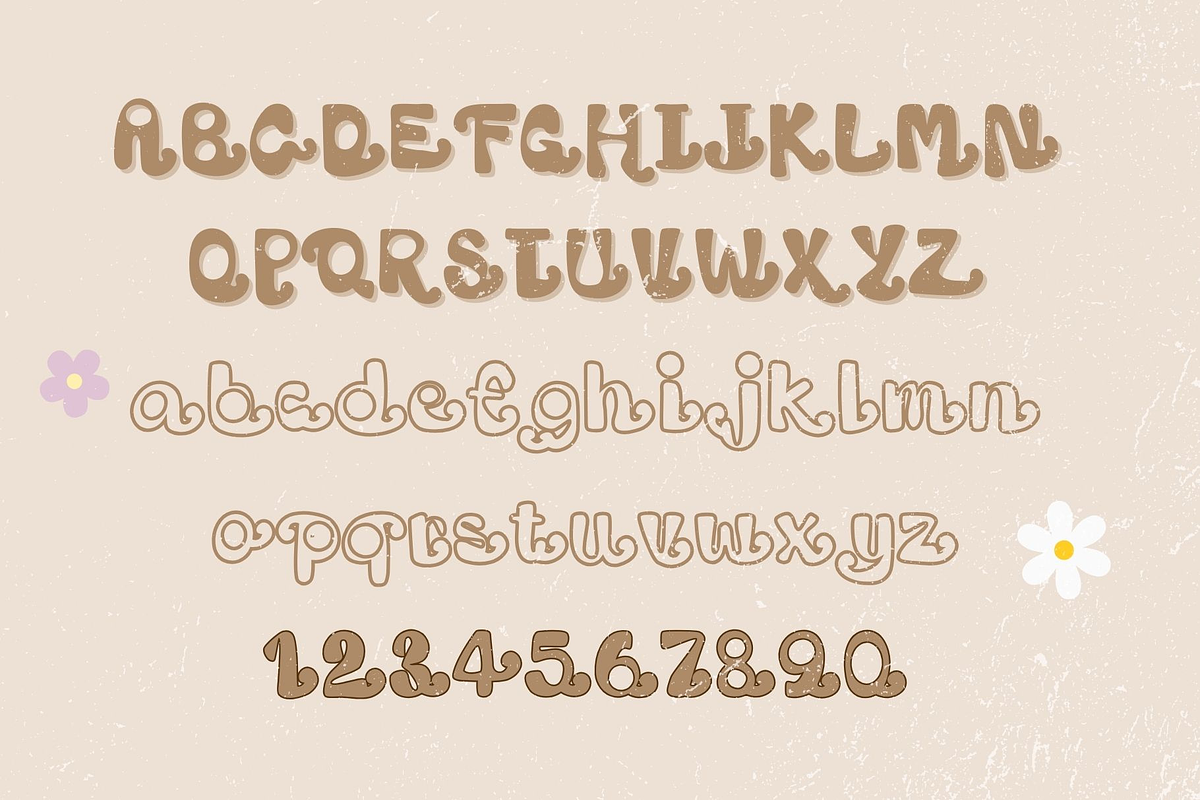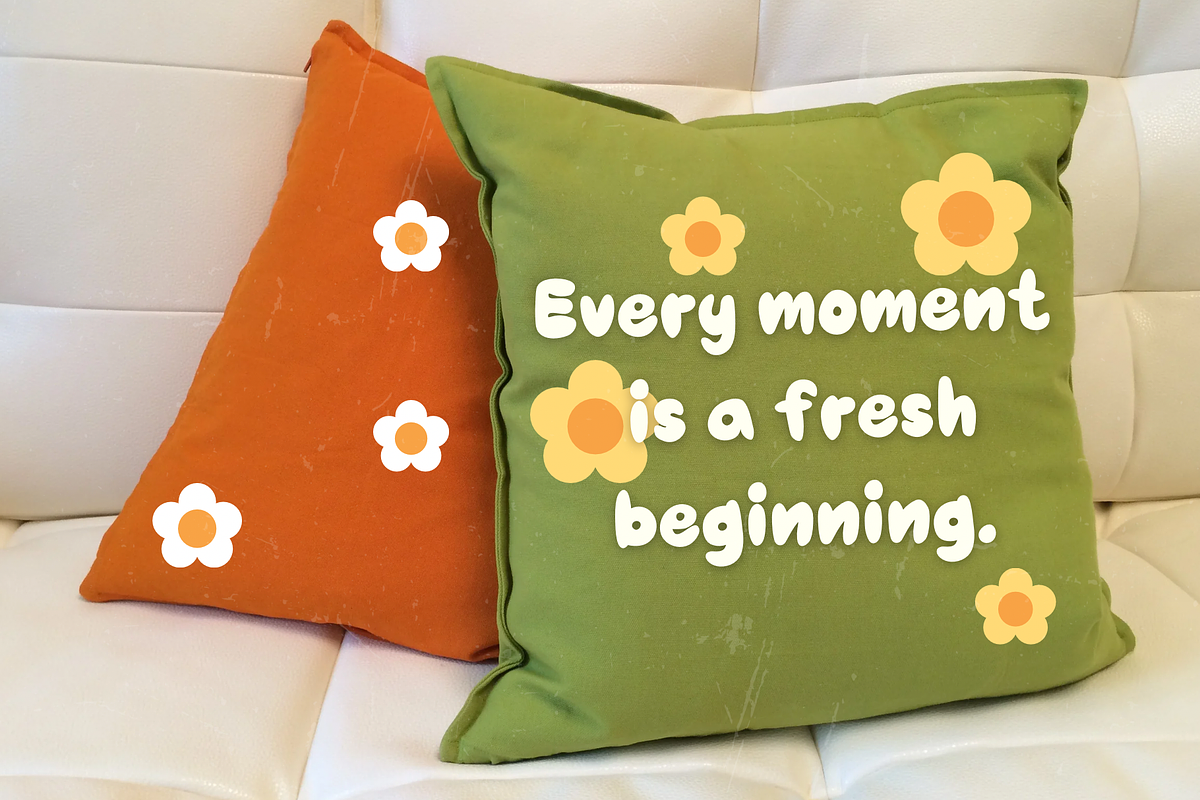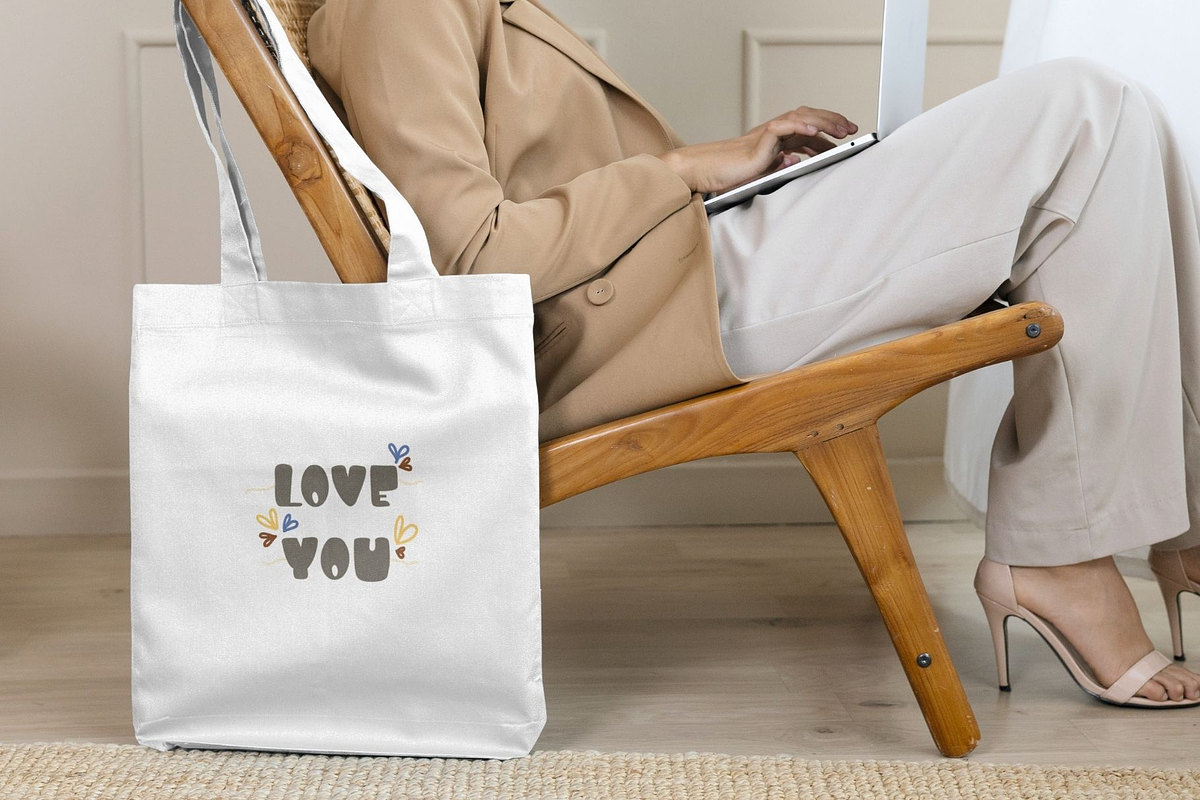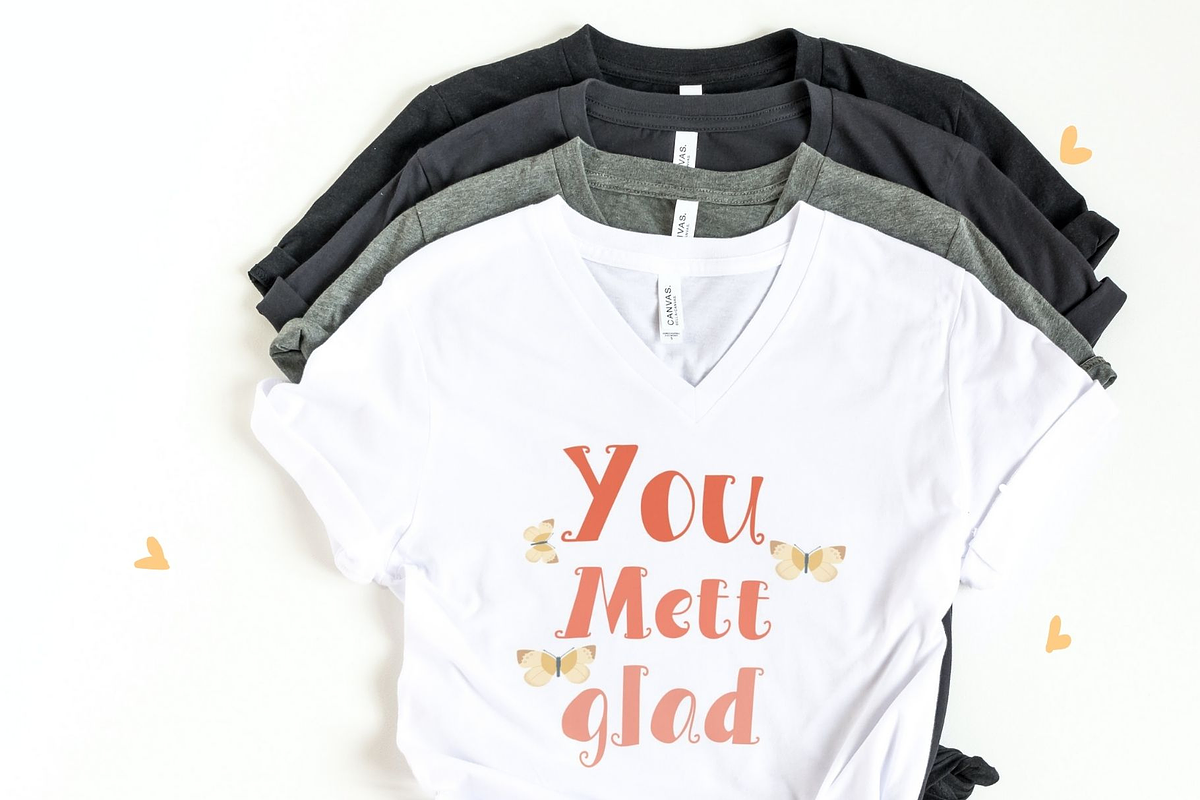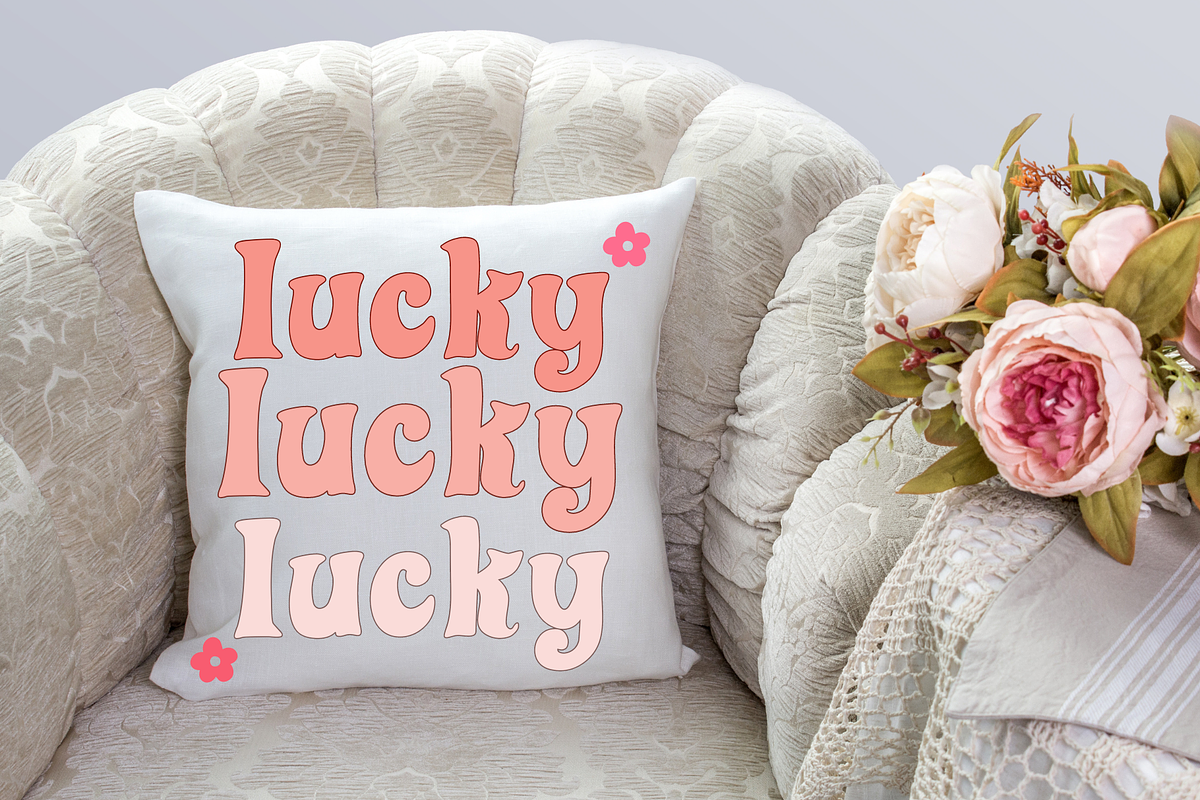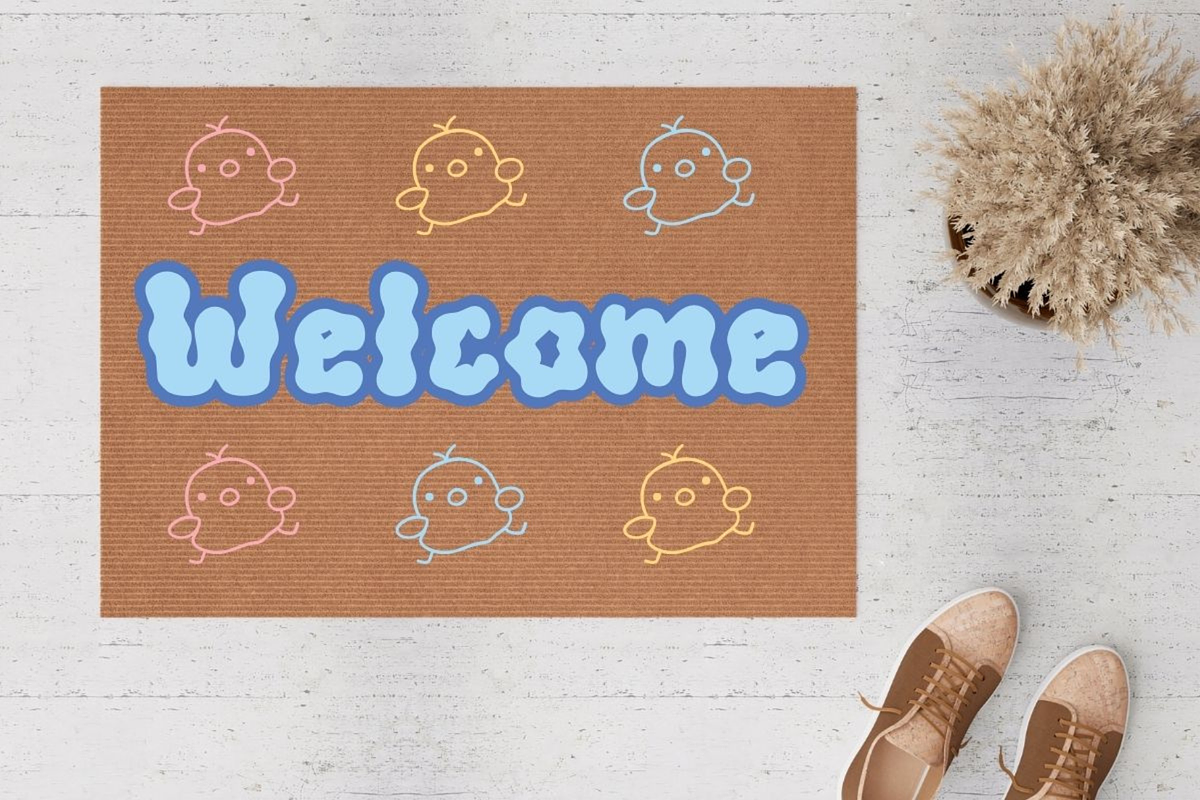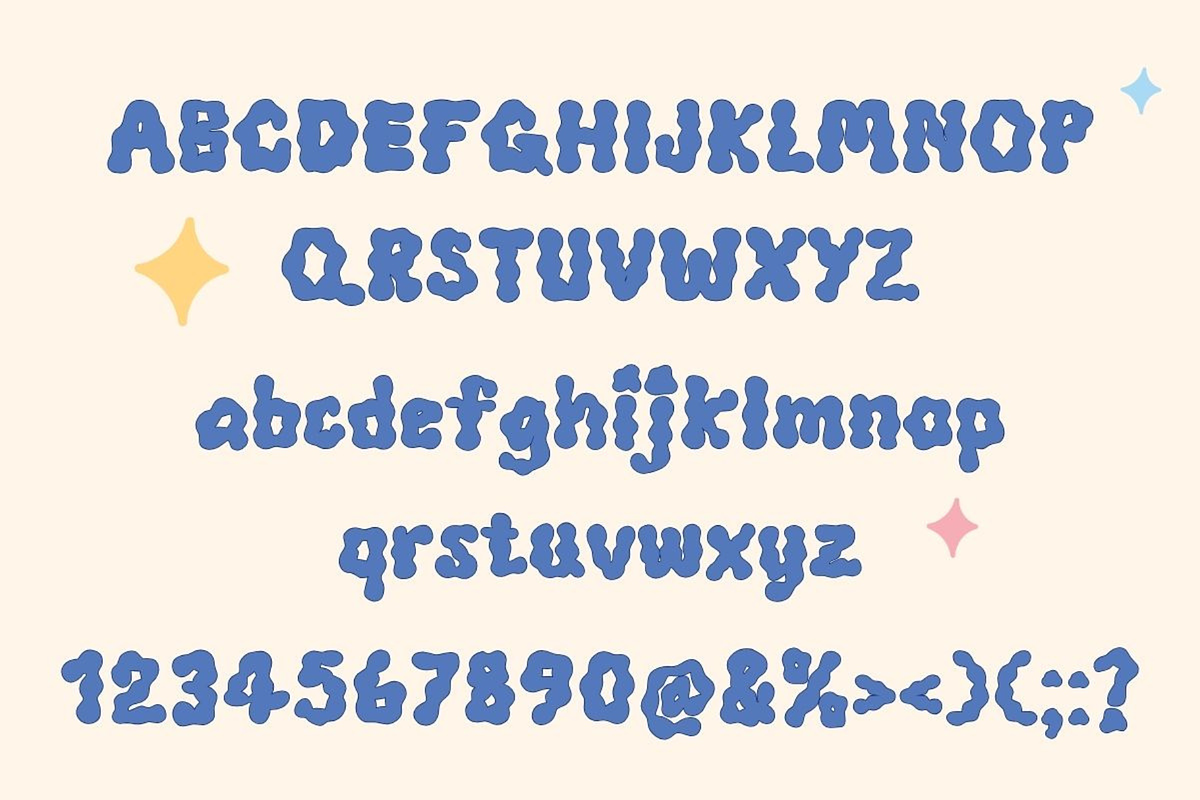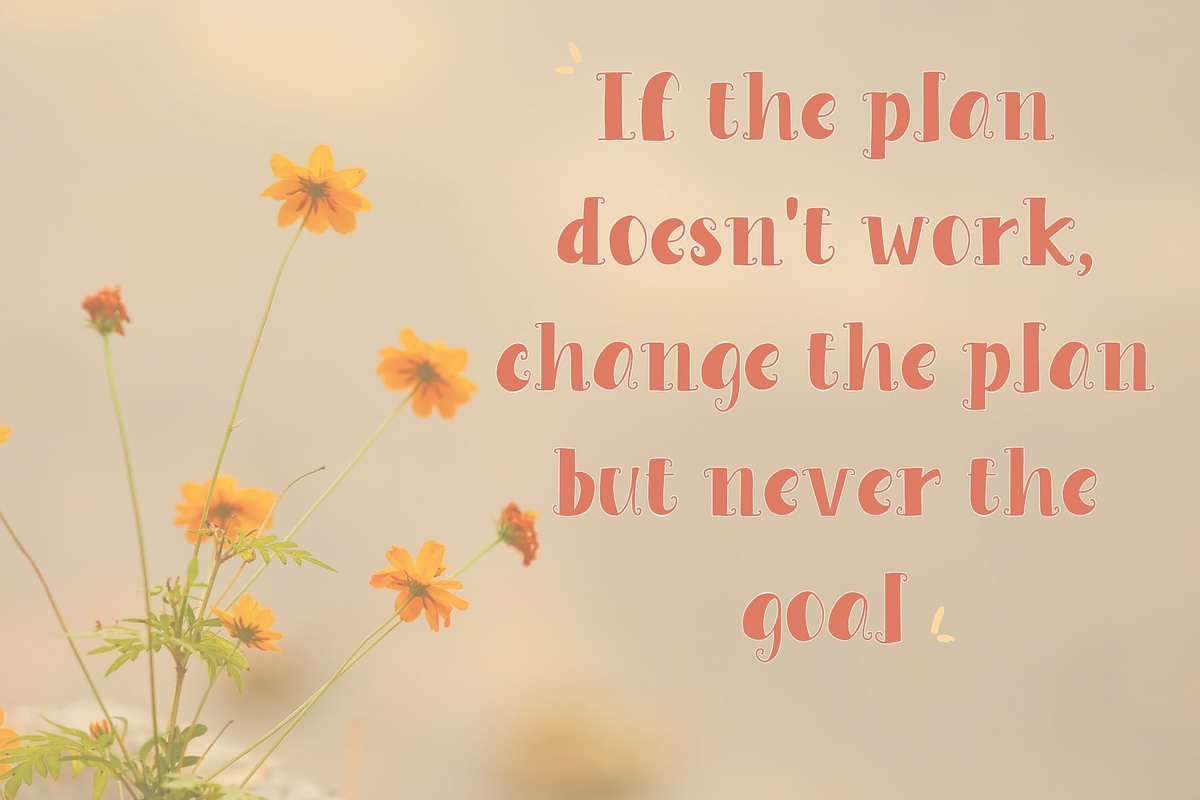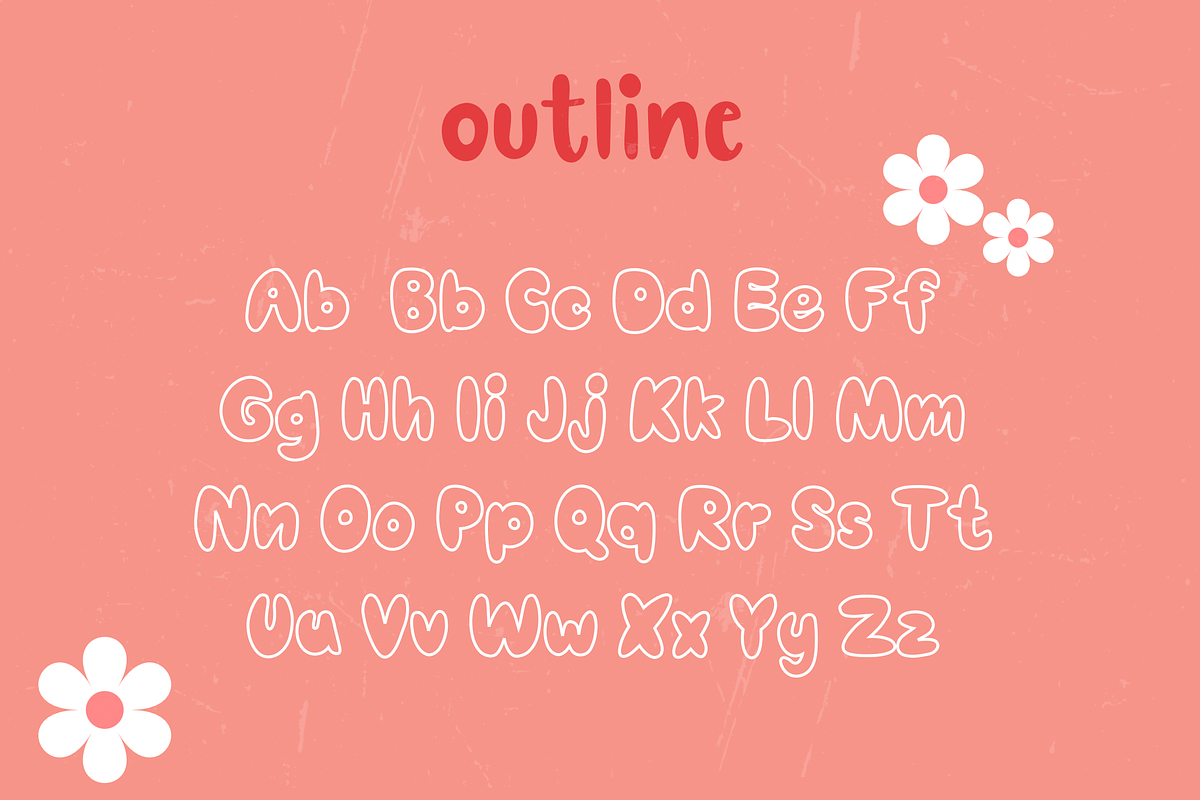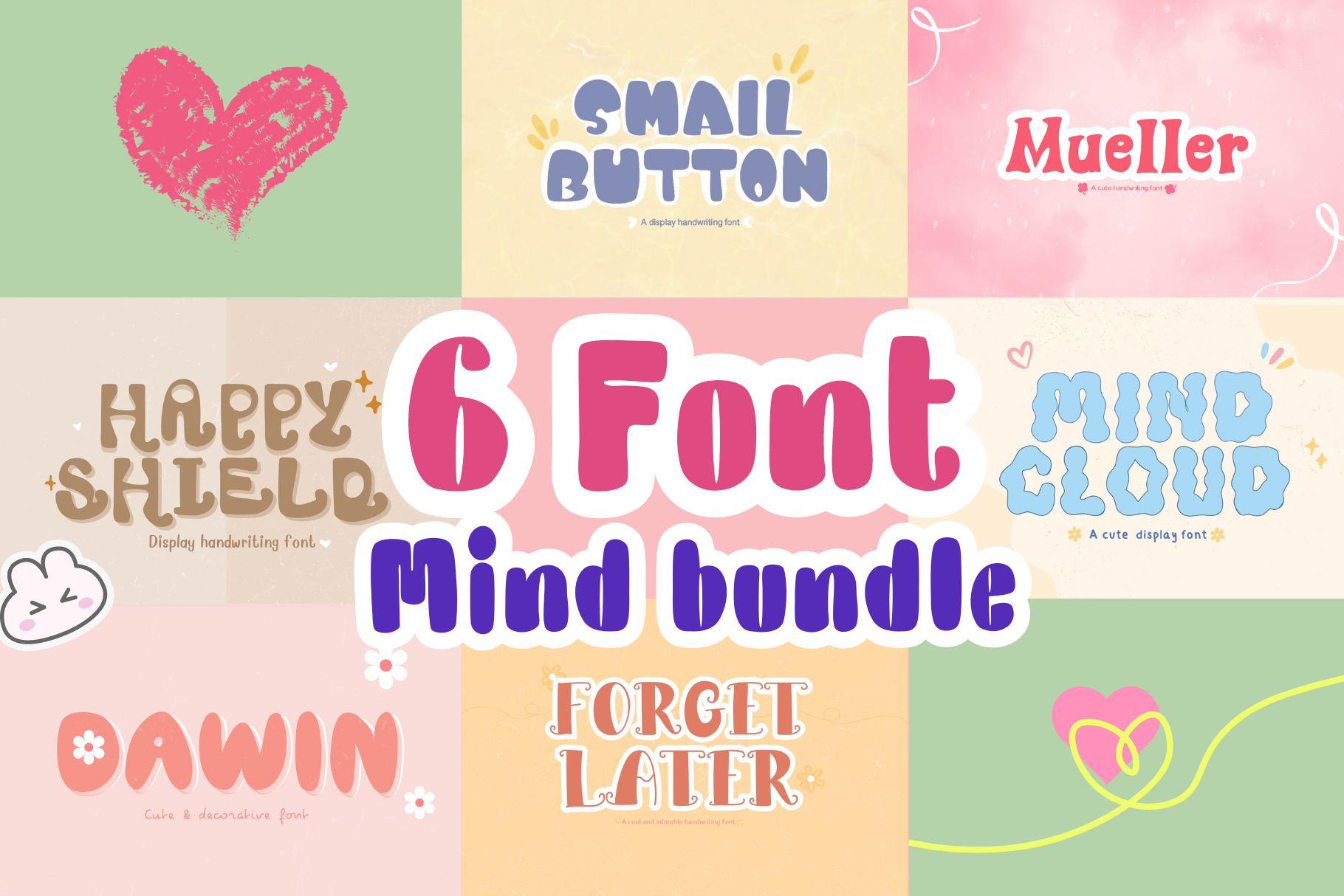
Mind 6 - bundle font
"This is a set of cute and unique flower fonts that will bring fun and uniqueness to your designs! With this diverse design, you can use it for various types of design work such as designing shirts, bags, hats, cards, gifts, and many other products!